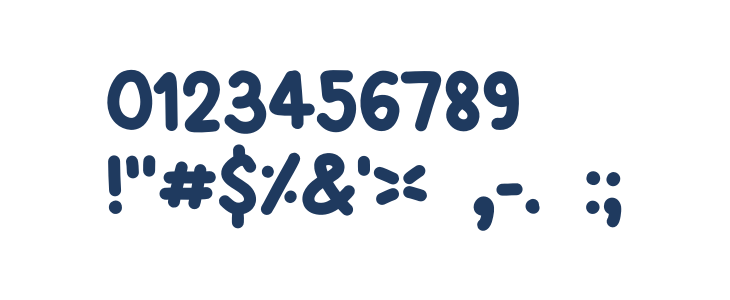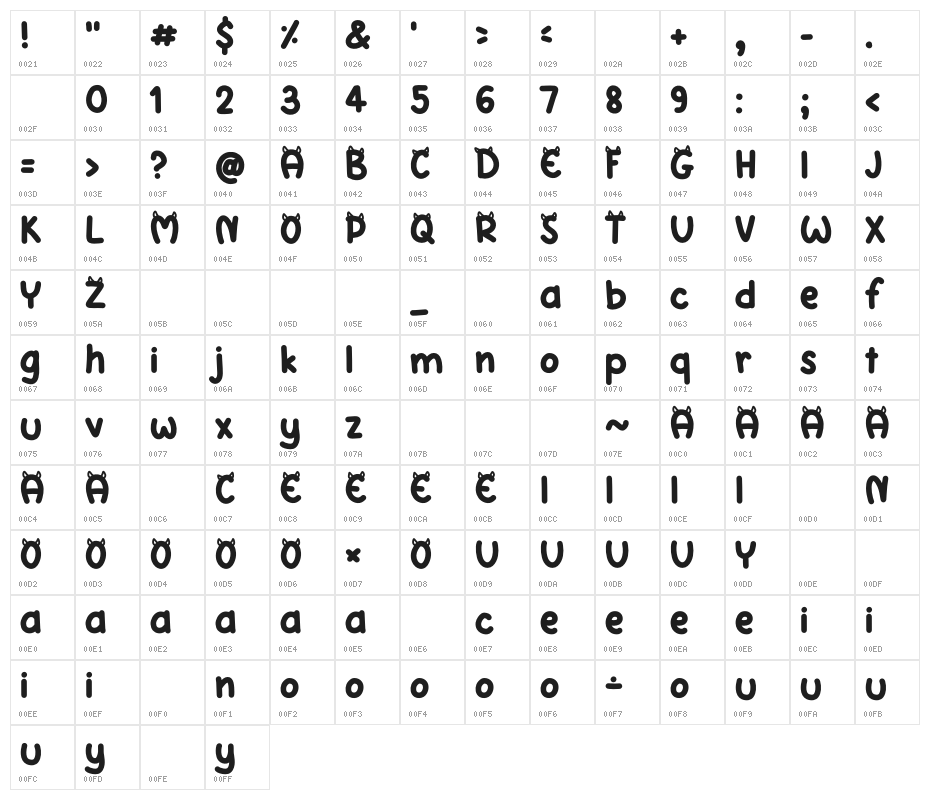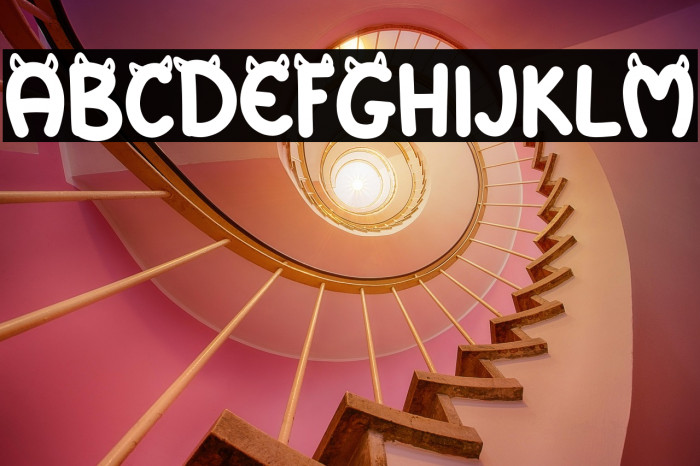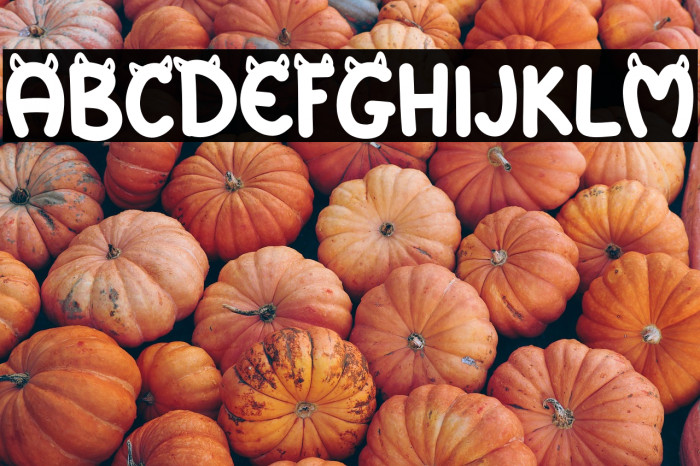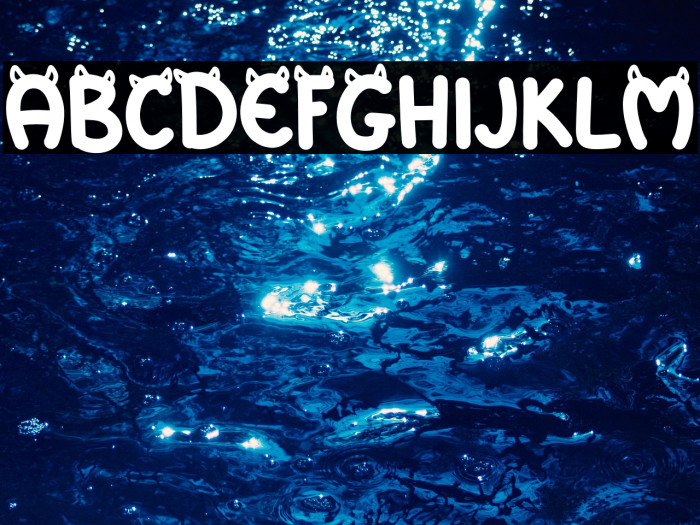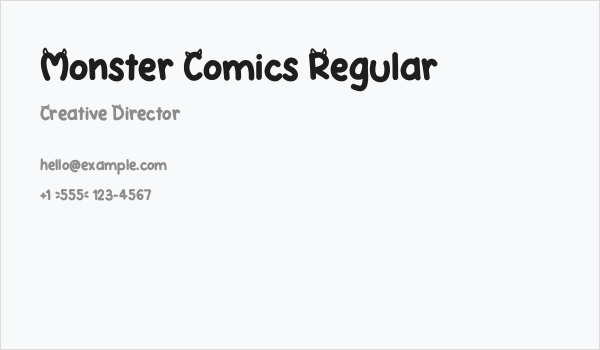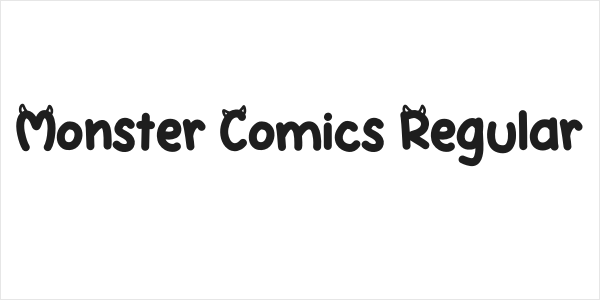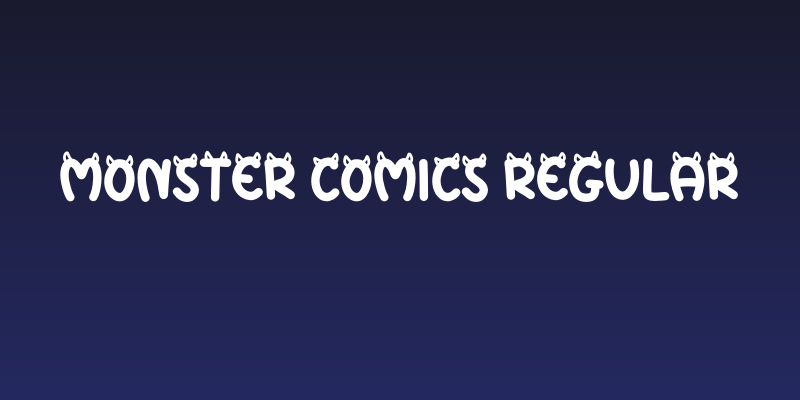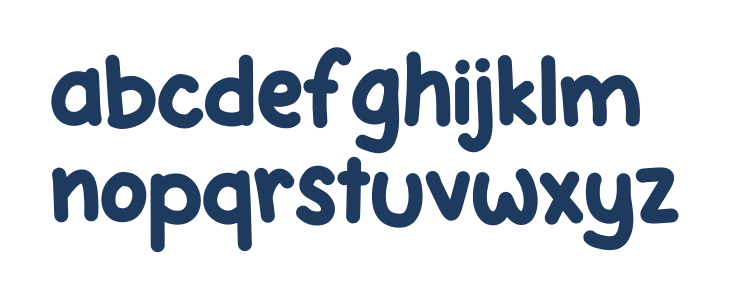
Monster Comics Regular Font
Monster Comics Regular Description
This playful and whimsical font features a unique design with small, horn-like accents on the uppercase letters, giving it a fun, monster-themed appearance. The characters are bold and rounded, with a consistent thickness that adds to its cartoonish charm. The lowercase letters maintain a similar style, with a slightly more relaxed and informal look. The numbers and special characters are designed to match the overall playful aesthetic, making this font ideal for creative and lighthearted projects. Its bold and friendly appearance makes it suitable for children's books, comic strips, and playful branding.
| Overall Style | Playful, Whimsical, Cartoonish |
| Proposed Projects | Ideal for children's books, comic strips, playful branding, and party invitations. |